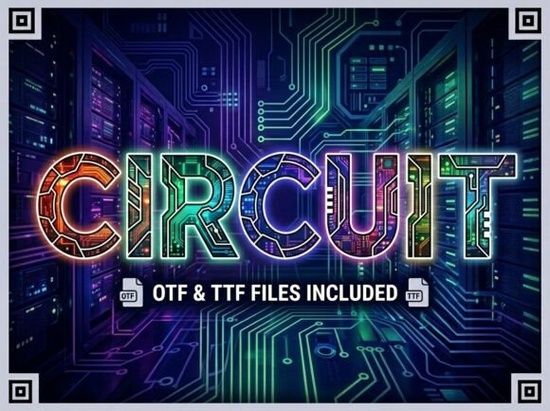
The Circuit Font is a standout choice for anyone looking to add a unique and eye-catching element to their design projects. This decorative display font is ideal for creating bold headlines, artistic logos, and creative packaging that truly grabs attention. Its strong visual personality makes it a go-to option for designers, crafters, print-on-demand sellers, and small businesses aiming to make a statement with their work.
One of the key features of the Circuit Font is its all-caps design. This means it only includes uppercase letters, making it perfect for situations where every letter needs to be a work of art. Whether you're designing a logo, a poster, or a product label, this font ensures your message stands out without any distractions from lowercase characters.
What Makes Circuit Font Unique?
The Circuit Font is more than just a stylish typeface it’s a tool that can elevate your creative projects. Its artistic elements are carefully crafted to give each letter a distinct look, ensuring that your designs feel fresh and original. Unlike many standard fonts, this one is designed with a focus on visual impact, making it an excellent choice for high-impact applications.
Designers who want to break away from the ordinary will find the Circuit Font particularly appealing. It offers a balance between creativity and professionalism, allowing you to maintain a polished finish while still making a bold statement. This versatility makes it suitable for a wide range of uses, from branding to packaging to digital marketing materials.
Best Uses for Circuit Font
The Circuit Font shines in applications where visual impact is key. Here are some common uses:
- Bold Headlines: Use it to create eye-catching titles for websites, posters, or social media graphics.
- Artistic Logos: Its unique style makes it ideal for logos that need to stand out and reflect a brand’s personality.
- Creative Packaging: Add a touch of originality to product labels, boxes, or banners with this striking font.
- Decorative Initials: Perfect for customizing stationery, invitations, or personal projects with a unique flair.
Its all-caps design also makes it a great choice for slogans, taglines, and other short-form text where clarity and style are equally important.